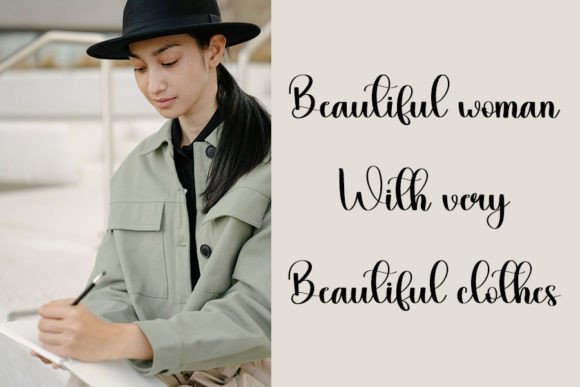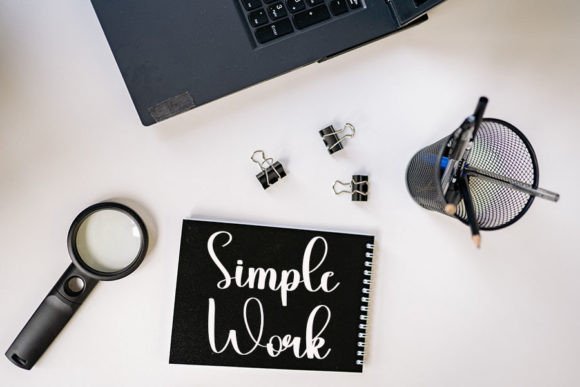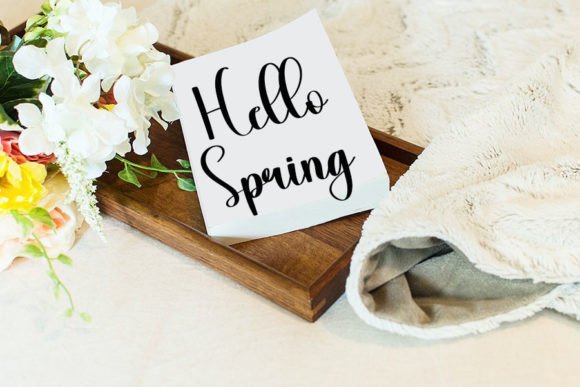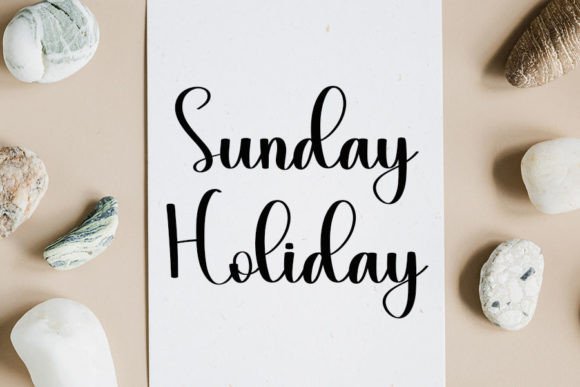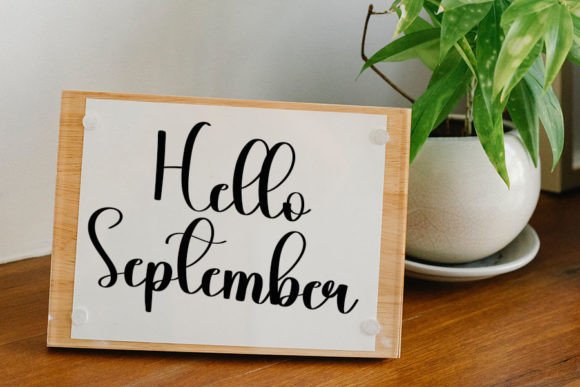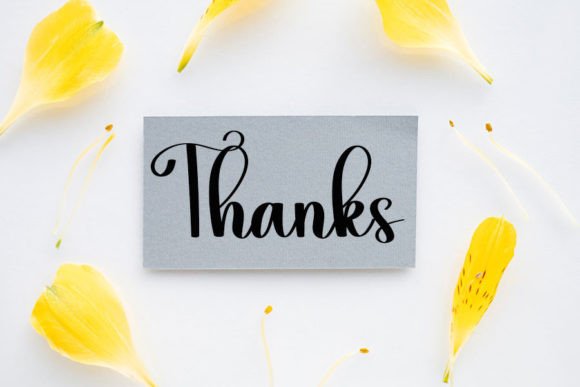
The Sweet Charm of Anable Font: A Designer’s Delight
I’ll never forget the time I was working on a luxury branding project for a high-end jewelry client. I had spent hours perfecting the logo design, but something was missing. The font I had chosen just wasn’t giving off the right vibe. It was then that I stumbled upon Anable Font, a sweet and beautiful handwritten font that features characters that dance along the baseline. It was love at first sight! ✨
An Honest Review of Anable Font
- ✨ Elegant and luxurious feel: Anable Font adds a touch of sophistication to any design project.
- ✅ Highly legible: Despite its elegant nature, Anable Font remains clear and easy to read, even at smaller sizes.
- 🎉 Versatile: This font is perfect for a wide range of design projects, from branding and packaging to wedding invitations and more.
While Anable Font is a stunning addition to any design project, there are a few things to keep in mind. 🤔
- ⚠️ Limited use of all-caps: While Anable Font does include uppercase letters, it’s best used sparingly to maintain its elegant feel.
- ⚠️ May require adjustments for certain languages: As with any font, some languages may require additional adjustments to ensure proper kerning and spacing.
A Practical Guide to Using Anable Font
The Story Behind Anable Font
Anable Font was designed with the intention of creating a beautiful and elegant handwritten font that would add a touch of luxury to any design project. Inspired by classic calligraphy and modern typography, Anable Font is the perfect choice for designers looking to add a touch of sophistication to their work.
Q: What is Anable Font?
A: Anable Font is a sweet and beautiful handwritten font featuring characters that dance along the baseline.
Q: What type of designs is Anable Font best suited for?
A: Anable Font is perfect for luxury branding, packaging, wedding invitations, and any design project that requires a touch of elegance and sophistication.
Q: Is Anable Font easy to read?
A: Yes, despite its elegant nature, Anable Font remains clear and easy to read, even at smaller sizes.